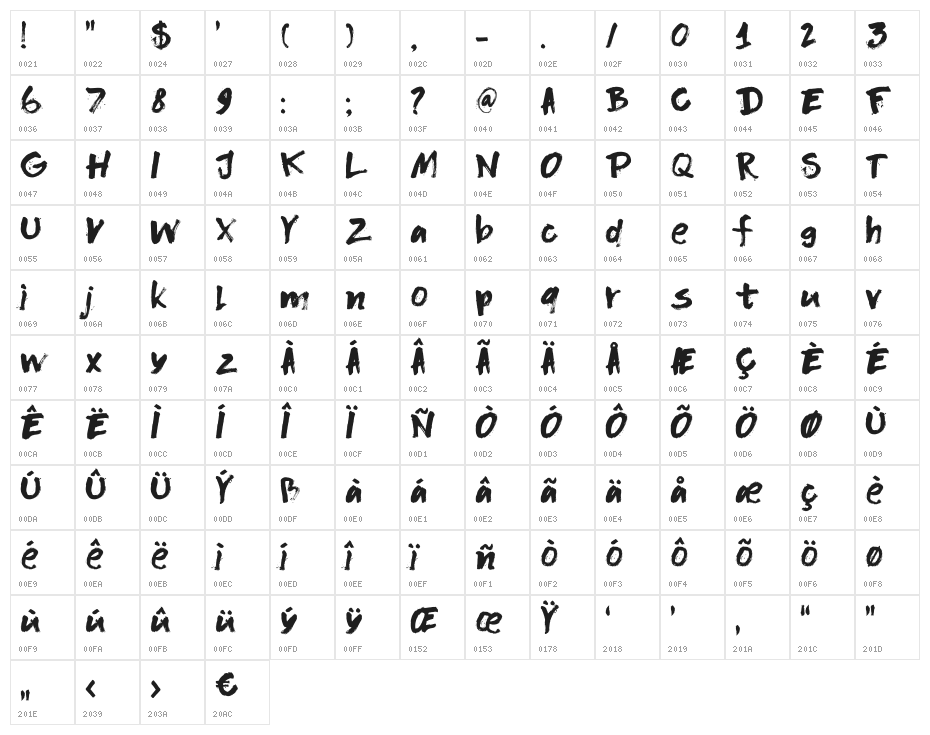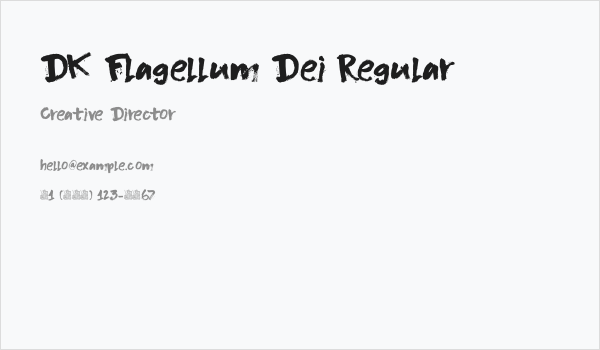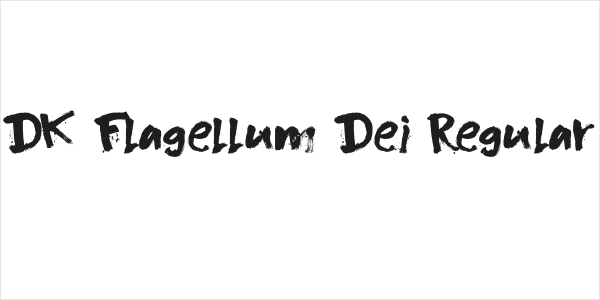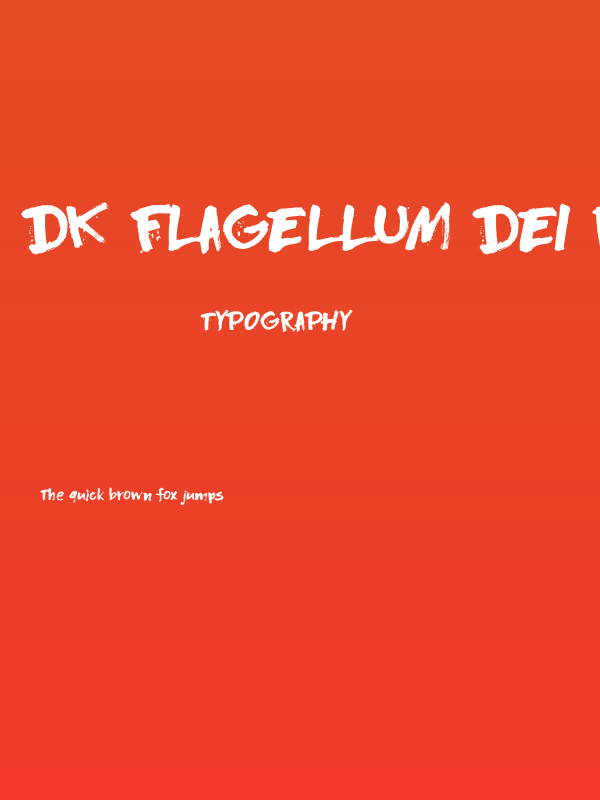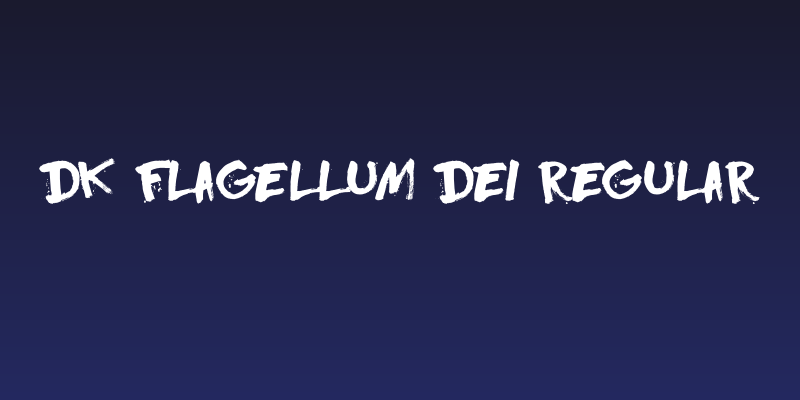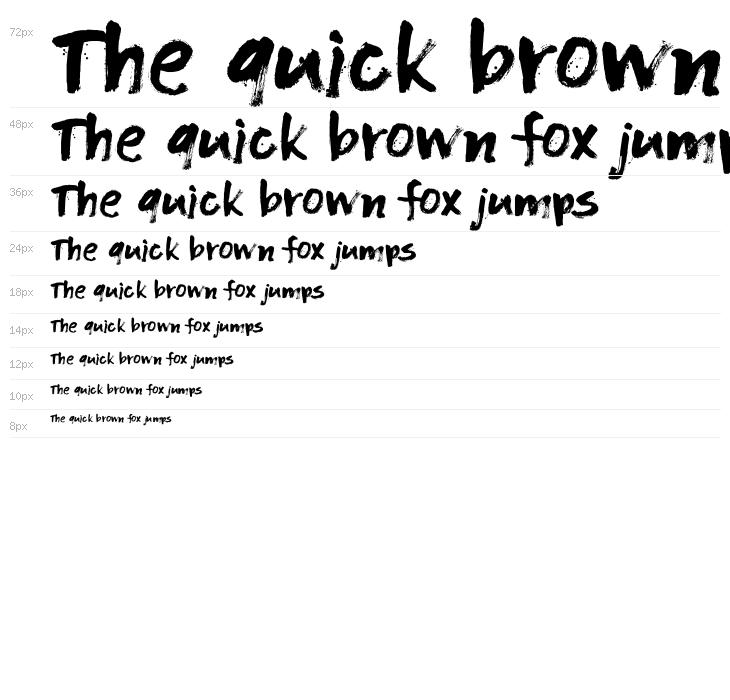
DK Flagellum Dei Regular Font
DK Flagellum Dei Regular Description
This font exhibits a bold and expressive brushstroke style, characterized by its dynamic and energetic appearance. The letters have a hand-painted look, with irregular edges and varying thickness, giving it a raw and artistic feel. The uppercase and lowercase letters maintain a consistent style, with a slightly rough texture that adds to its visual interest. The numbers and special characters follow the same aesthetic, ensuring a cohesive look across all glyphs. This font's unique style makes it stand out, offering a sense of movement and creativity.
| Overall Style | Artistic, Expressive |
| Use Case | Headlines, Posters, Artistic Designs |
| Proposed Projects | Ideal for artistic projects, posters, album covers, and any design requiring a bold, creative touch. |